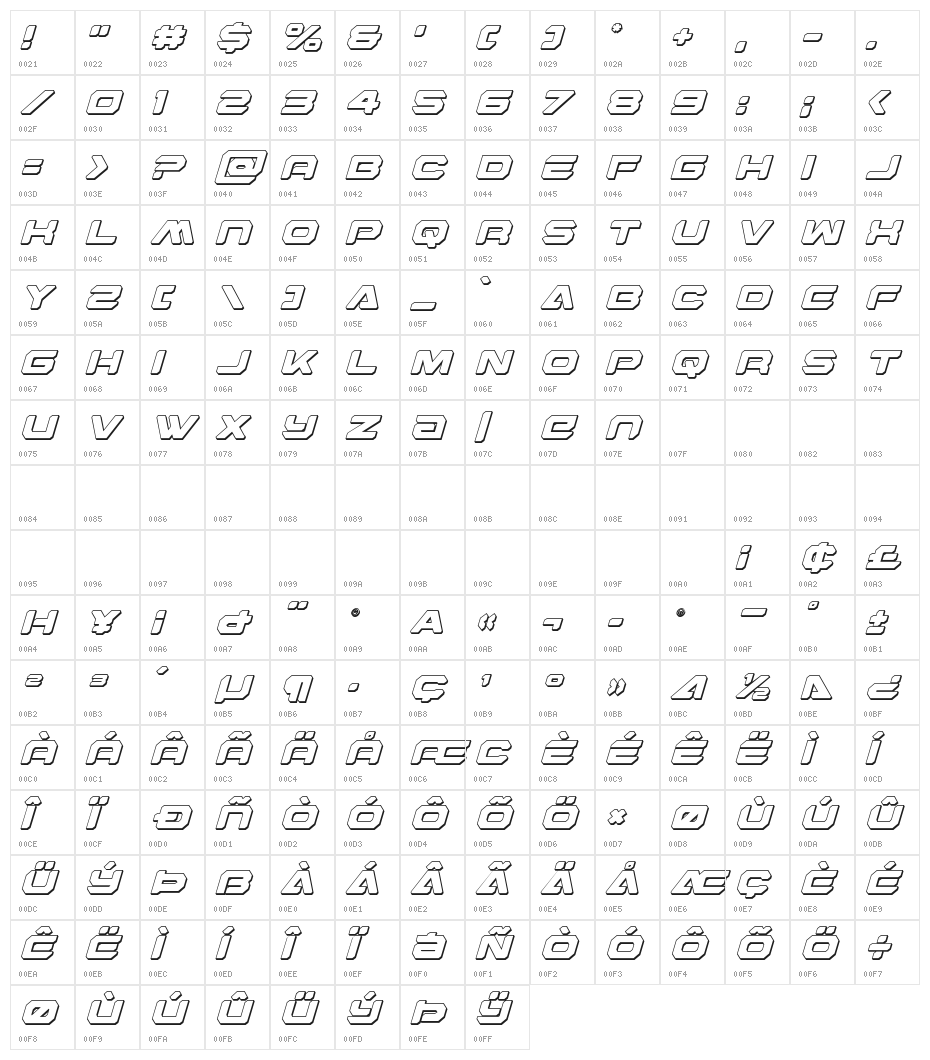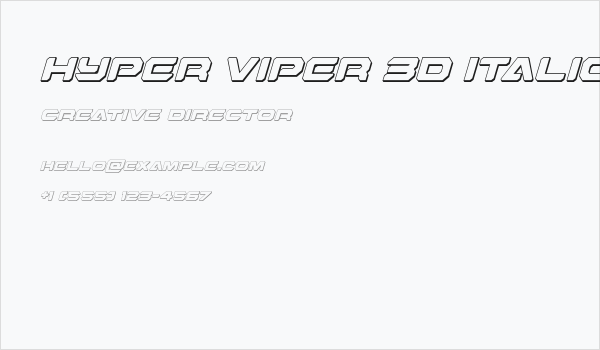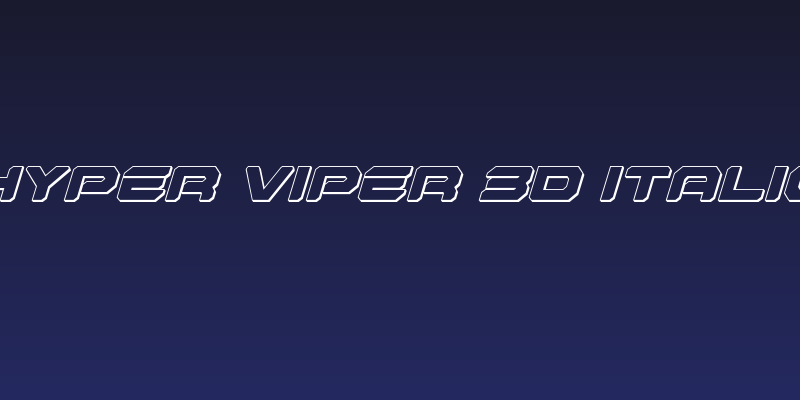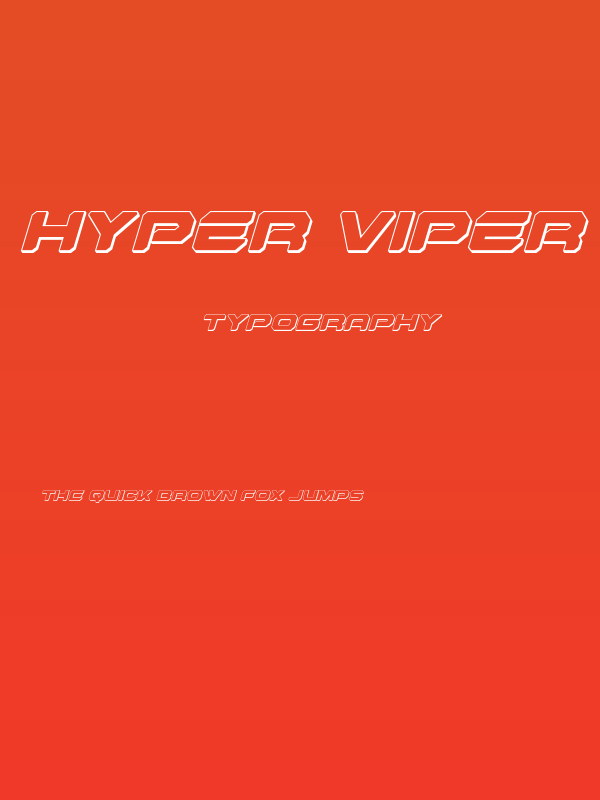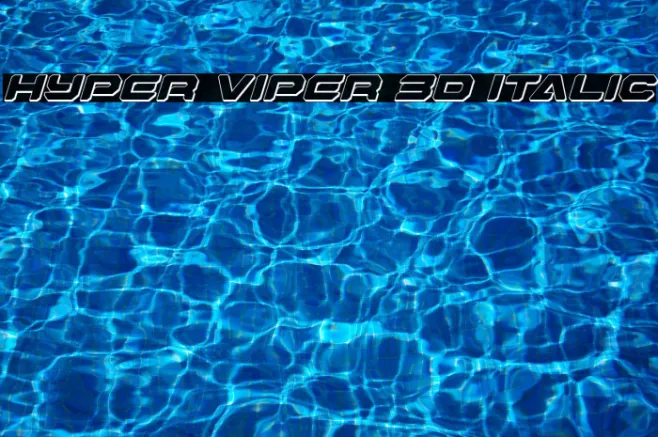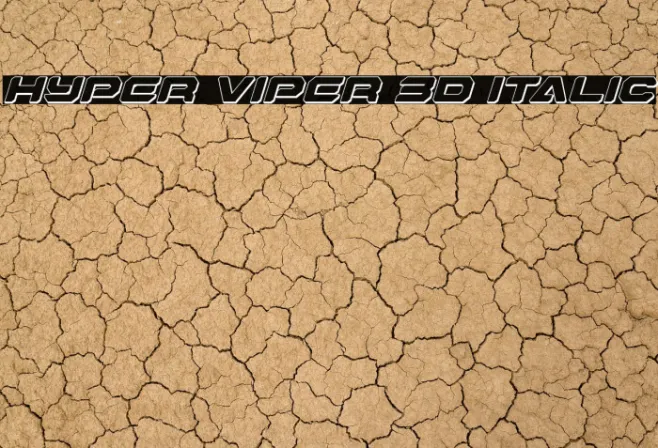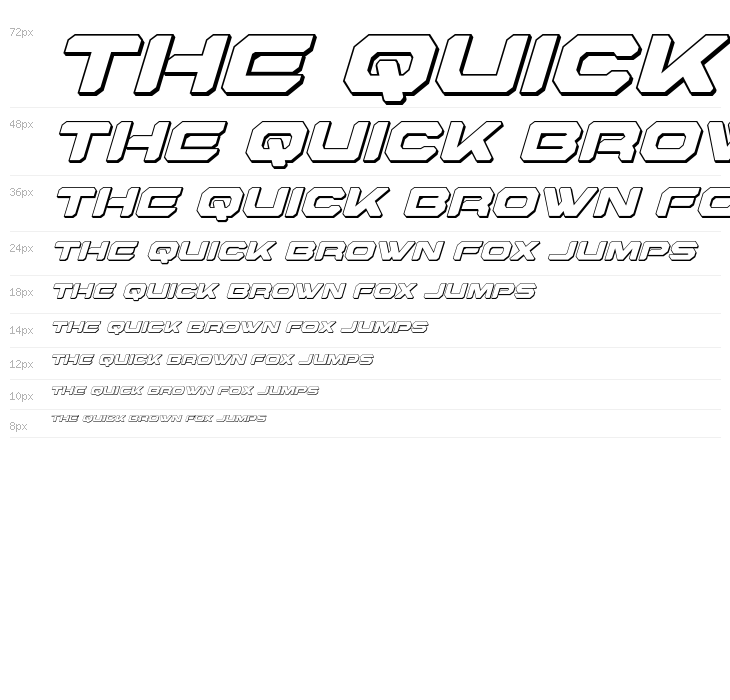
Hyper Viper 3D Italic Font
Hyper Viper 3D Italic Description
This font features a bold, futuristic design with a three-dimensional effect that gives it a dynamic and energetic appearance. The characters are italicized, adding a sense of motion and speed. Each letter is outlined, enhancing the 3D effect and making the text stand out. The font is highly stylized, with angular cuts and sharp edges that contribute to its modern and tech-inspired aesthetic. The spacing between characters is relatively tight, which helps maintain the compact and cohesive look of the text. This font is ideal for projects that require a bold and impactful visual statement.
| Proposed Projects | Ideal for video game titles, tech-related branding, futuristic posters, and sci-fi themed projects. |